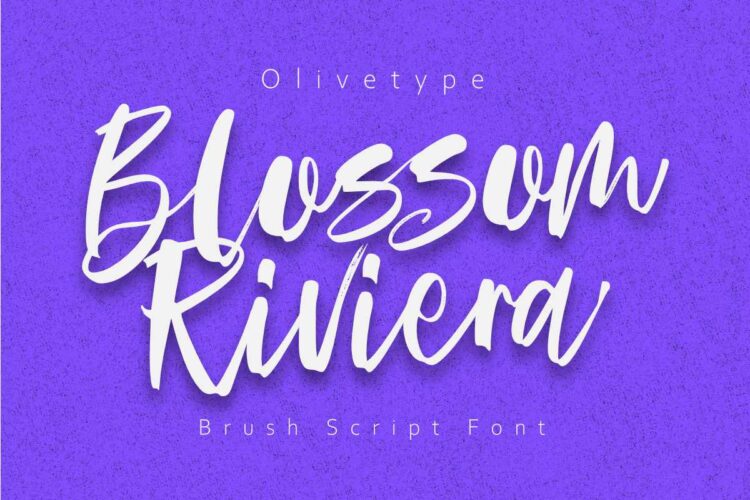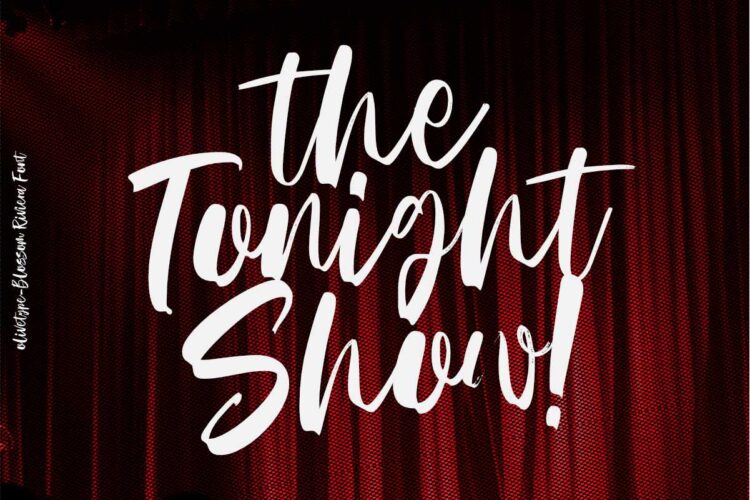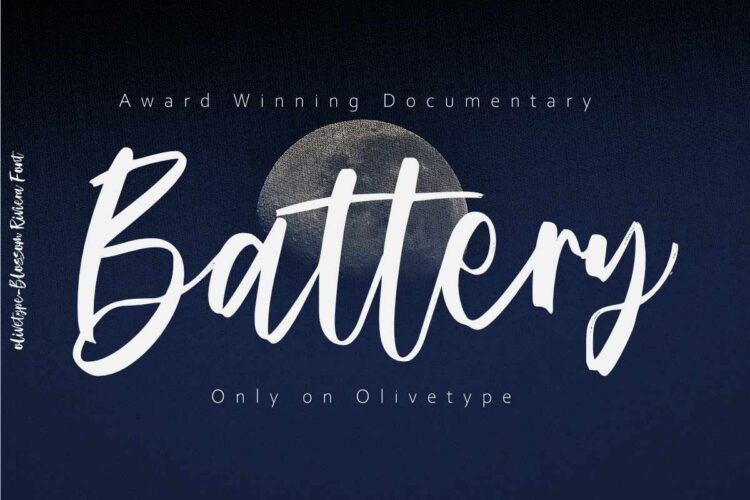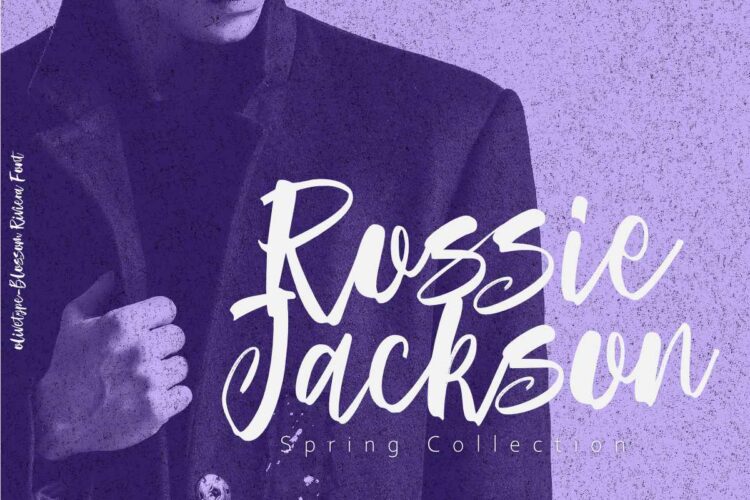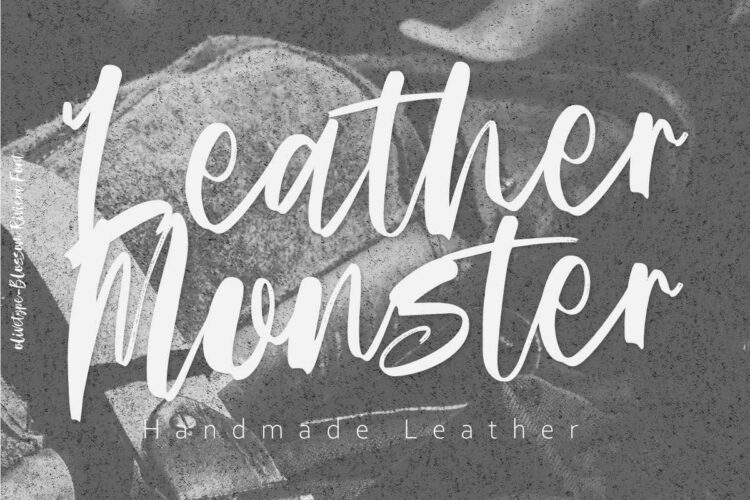
Blossom Riviera is the perfect brush script font for giving your projects a natural, handmade feel. With its cool, awesome texture, suitable for creating beautiful, unique logos and headlines.